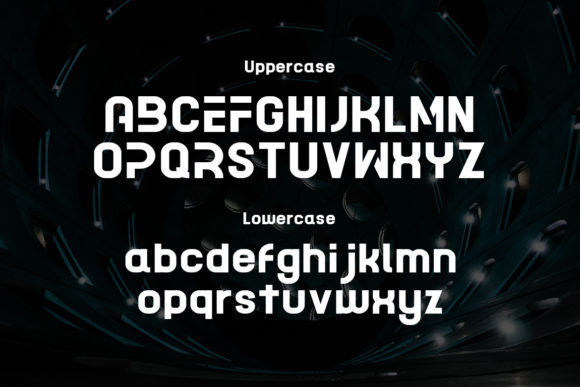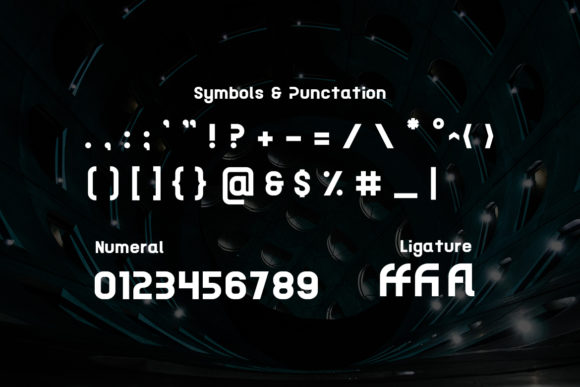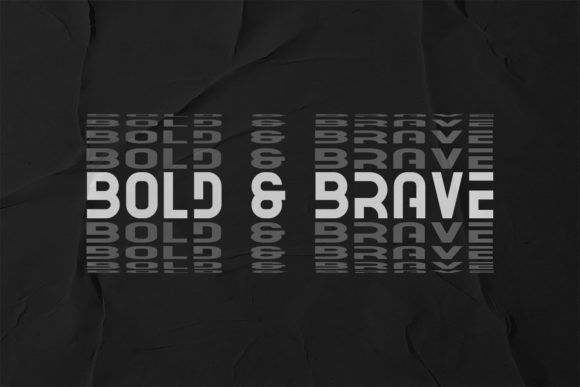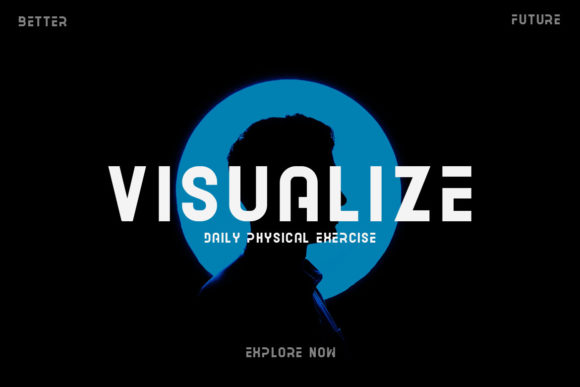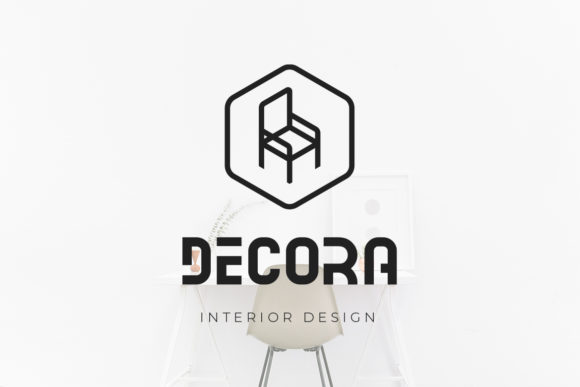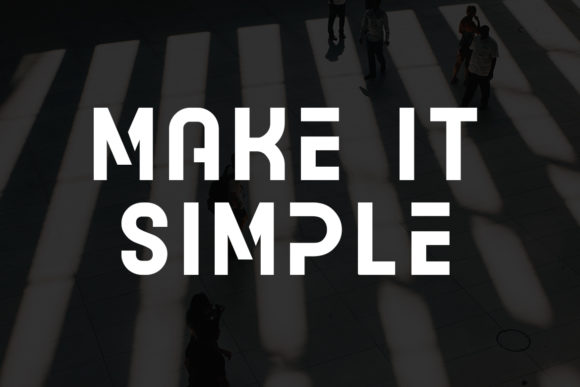
Rev Up Your Sci-Fi Designs with the Acetone Font
Have you ever stared at a blank screen, waiting for that perfect font to spark your creativity? For designers, this moment is all too familiar. The search for the perfect font can be a daunting task, but what if you could unlock a futuristic display font that elevates your sci-fi designs to the next level?
Enter the Acetone Font, a cutting-edge font designed specifically for minimalistic logos and branding. Its sleek and modern aesthetic is perfect for any project that requires a touch of futuristic flair. Whether you’re working on a product packaging design, invitation, or quote, the Acetone Font is sure to deliver. What makes it truly valuable for designers is its versatility and ease of use, making it a go-to choice for any project that requires a bold and eye-catching font.
Key Features of Acetone Font
- Font Family: Acetone Font is a sans-serif font family, designed specifically for use in UI and UX design.
- Size and Resolution: The font family includes a range of weights, from Thin to Black, with a resolution of 72 dpi, suitable for digital interfaces.
- Unique Characteristics: Acetone Font features a clean and modern design, with a focus on legibility and clarity, making it ideal for use in digital products.
- Language Support: The font family supports a wide range of languages, including Latin, Cyrillic, and Greek, making it a versatile choice for global applications.
- Style Variations: The font family includes a range of styles, including regular, italic, bold, and bold italic, providing designers with flexibility and creative freedom.
Acetone Font Review
As a designer, I was excited to dive into the world of Acetone Font. With its bold and edgy aesthetic, it’s clear that this font is made for those who want to make a statement. ✨ One of the things that really stands out to me is the font’s versatility. It can be used for a wide range of projects, from packaging to digital design.
- Highly customizable: Acetone Font offers a wide range of customization options, from bold and condensed to italic and extended.
- Easy to read: Despite its edgy aesthetic, the font is surprisingly easy to read, making it a great choice for body text.
- Perfect for bold statements: The font’s bold and edgy design makes it perfect for making bold statements and grabbing attention.
However, there are some limitations to consider. ⚠️ One of the biggest drawbacks is the font’s limited legibility in smaller sizes. While it’s great for headings and titles, it may not be the best choice for body text in smaller sizes.
Overall, I’m really impressed with Acetone Font. It’s a great choice for designers who want to make a bold statement and add some edge to their designs. With its versatility and customization options, it’s a great addition to any design toolbox.
Acetone Font is ideal for use in graphic design, branding, and digital art. It is also commonly used in posters, flyers, and other visual materials. To get the most out of the font, use it in combination with bold and italic styles to create emphasis and hierarchy.